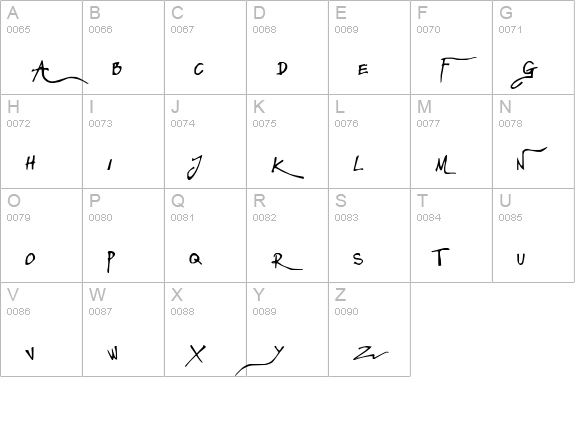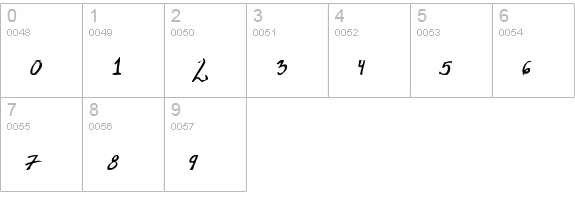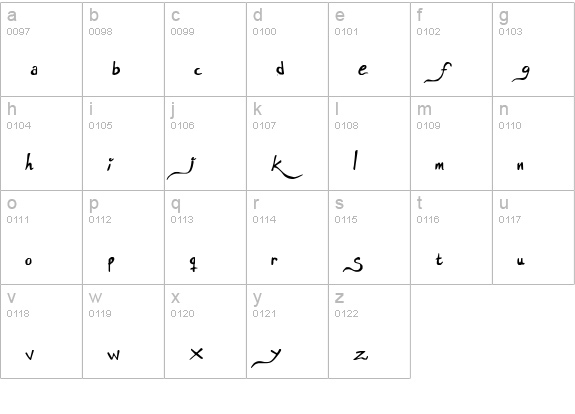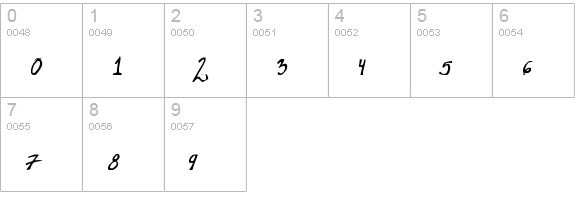
Anarchistic Font Details
The Anarchistic font is a bold and rebellious typeface that embodies the spirit of nonconformity and individuality. With its edgy design and anarchistic flair, this font is perfect for making a statement and standing out from the crowd. Its sharp angles and jagged edges give it a sense of defiance and defiance, making it ideal for projects that push boundaries and challenge the status quo. What sets the Anarchistic font apart is its unique blend of chaotic energy and artistic appeal. Each letter is carefully crafted to exude a sense of rebellion and freedom, making it a powerful tool for expressing your most daring ideas and unconventional thoughts. Whether you're creating posters, album covers, or branding materials, the Anarchistic font will help you make a bold statement and leave a lasting impression. Best of all, the Anarchistic font is freely available to download at FontsMarket.com. So go ahead, unleash your creativity and let your imagination run wild with this one-of-a-kind typeface. Embrace the chaos, break the rules, and make your mark with the Anarchistic font.